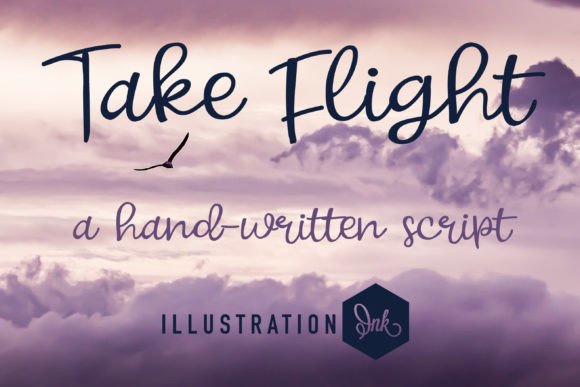
Introducing the Take Flight Font, the elegant script font that captures the freedom of handwritten expression. This casual script font exudes a natural and stylish charm, making it the perfect choice for those seeking a unique touch in their designs.
With its flowing lines and effortless style, the Take Flight Font brings a sense of authenticity and warmth to any project. Its versatile nature makes it suitable for a wide range of applications, from wedding invitations and thank-you cards to logos, business cards, and more.
Imagine the allure of your wedding invitations adorned with the Take Flight Font, conveying the essence of your love story with every stroke. Its delicate curves and graceful flourishes add a touch of timeless elegance, while its legibility ensures that your message is communicated clearly.
Envision your gratitude expressed in the heartfelt words of thank-you cards, penned in the Take Flight Font. Its casual charm and genuine feel convey your appreciation in a way that resonates with the recipient. The font's natural flow mimics the sincerity of your sentiments, making each card a cherished keepsake.
Unleash your creativity with the Take Flight Font, the perfect companion for your extraordinary projects. Its versatility shines in quotes, greeting cards, and logos, imbuing each design with a touch of individuality. The font's ability to effortlessly blend with various design elements makes it a versatile tool for expressing your unique vision.
Embark on your creative journey with the Take Flight Font, the key to unlocking captivating designs that leave a lasting impression. Its easy-going look and feel invite you to explore the boundless possibilities of handwritten expression, transforming your designs into works of art.